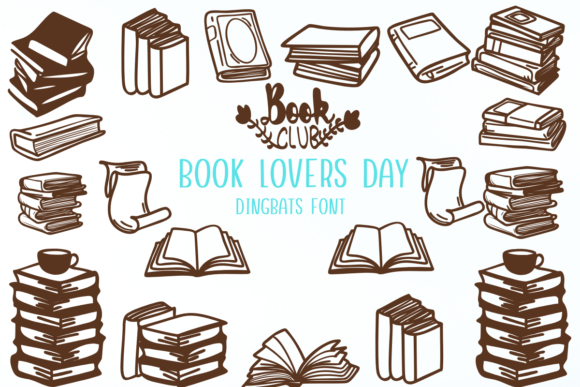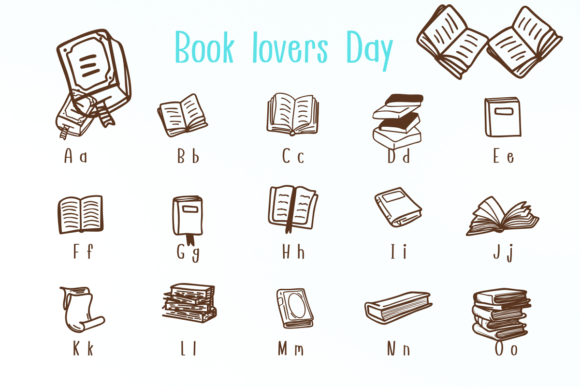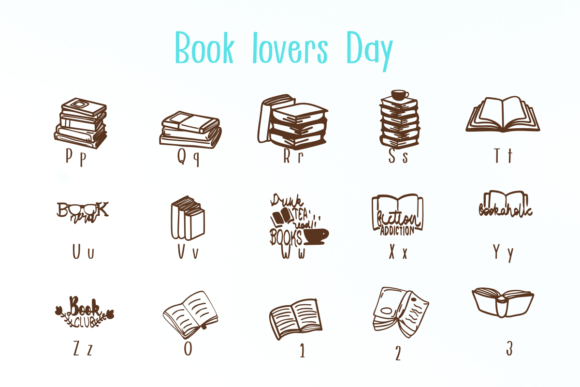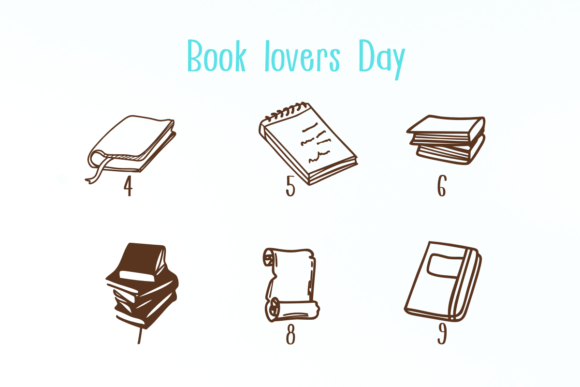
Book Lovers Day Font
About the Book Lovers Day Font
Step up your design game with Book Lovers Day Font, a font that exudes confidence and style. Book Lovers Day is a fun dingbats font. It can enhance your creative projects such as wedding invitations, DIY, crafts, decorations, logos, and many other creative ideas.
Book Lovers Day’s playful dingbat style is ideal for projects requiring a lighthearted, whimsical touch. It excels in short text applications such as logos, headlines, and social media graphics. Consider it for branding projects targeting a young, creative audience or for packaging designs emphasizing fun and approachability. Avoid using it for large blocks of text or body copy; its legibility suffers in extended use.
Pairing Book Lovers Day with a clean sans-serif like Open Sans for body text creates a balanced visual contrast, allowing the dingbats to pop while maintaining readability. For a more sophisticated look, consider a classic serif like Garamond or a slightly more modern geometric sans-serif such as Lato. These pairings offer visual harmony without overpowering the font’s unique charm.
The font’s overall personality is undeniably cheerful and approachable, making it a strong choice for brands or projects needing a friendly, informal feel.
Book Lovers Day Font Usage Examples
Book Lovers Day Font Example